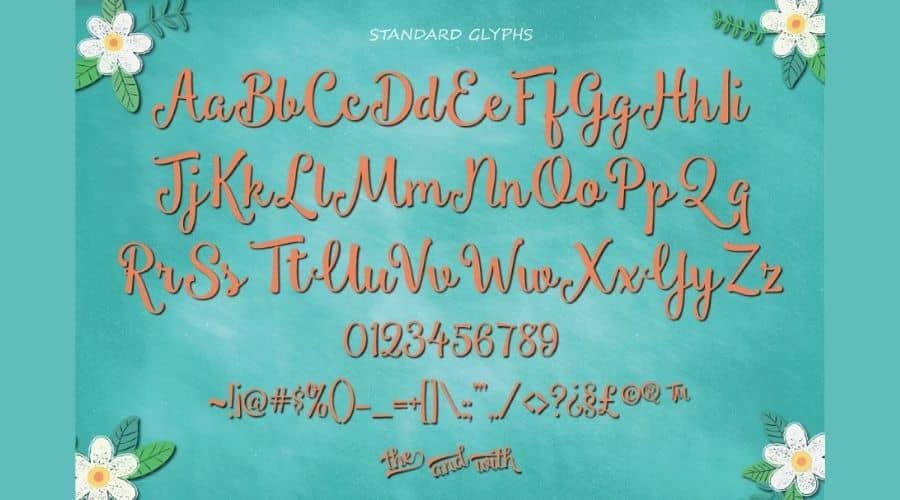
Smoothie Shoppe Font
Smoothie Shoppe Font Free is a new Script font. The Font was uploaded on December 4, 2017. It’s a fantastic and extremely versatile font that’s accessible for personal use for free! It has a lot of features, including punctuation and some extremely cool linking characters with swooshes.
The Font was created and published by Emily Spadoni. Smoothie Shoppe is a script typeface that works on PCs, Macs, Linux, iOS, and Android devices. Serif fonts should be used with caution on the web since they have a short length and can become difficult to read. If you want a look similar to the double magnolia sky, this is the Font to use. This Script font is a fantastic subject for photo design and printing.
This is a one-of-a-kind way to use it for a few elegant tasks. However, with its assistance, many designers are attempting to incorporate a few fresh and intriguing elements into their designs. It’s suitable for usage in embroidered typefaces.